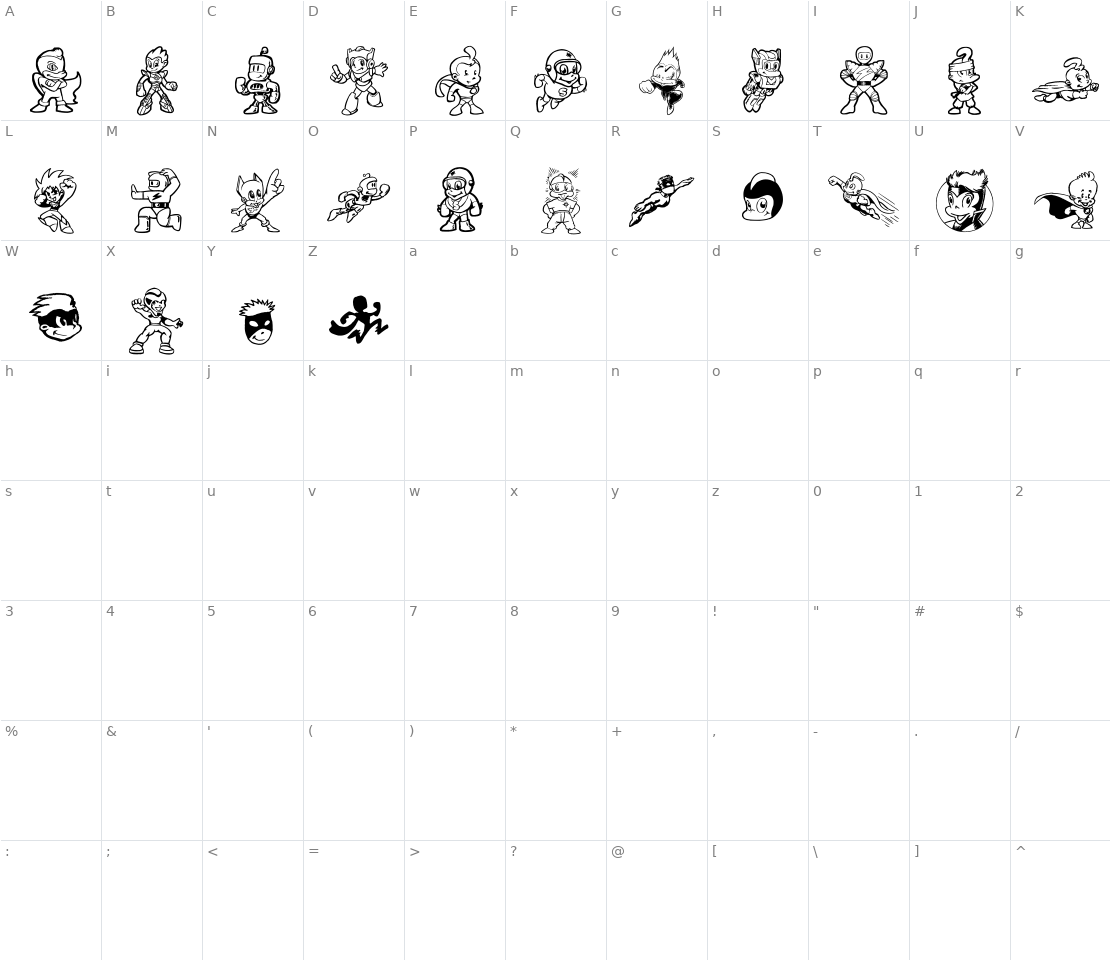
Tiny Heroes
Tiny Heroes is a character-based novelty font from imagex where each letter is built from cute, cartoon superhero figures in outlined, comic-book style. The playful, kid-friendly aesthetic makes it a natural pick for children's projects, party invitations, and anything that needs a lighthearted, heroic energy. More of a decorative accent than a readable typeface, so it works best as a fun visual element in titles and headers.